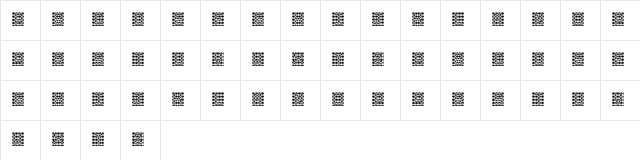
Complete THE ILLUSION OF THE JESTER Regular glyph index. Displaying only characters natively supported by THE ILLUSION OF THE JESTER Regular font.
THE ILLUSION OF THE JESTER is a composed and adaptable typeface that performs quietly and consistently across a wide range of design contexts.